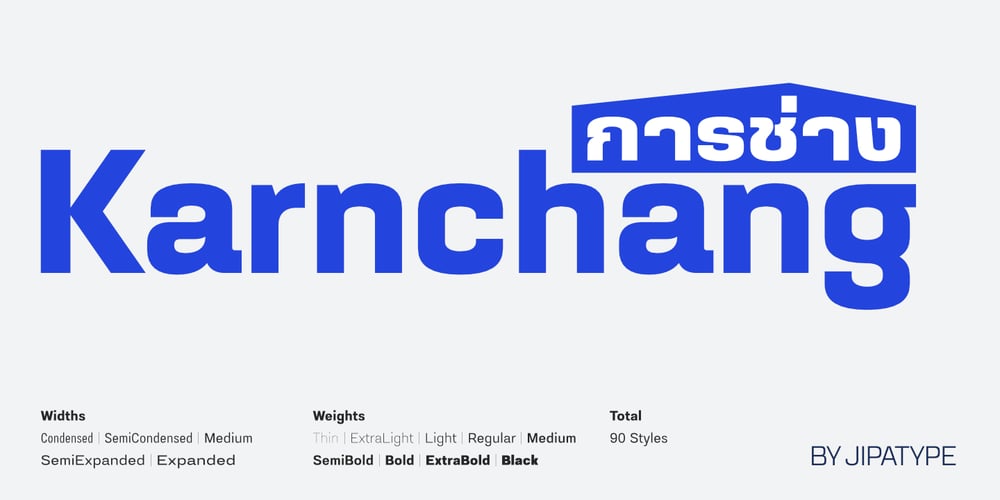
Karnchang
Karnchang font
Karnchang Font Family was designed by Anupap Jaichumnan and published by Jipatype. Karnchang contains 90 styles and family package options. Karnchang is a versatile sans-serif typeface that offers a range of 90 styles, spanning from thin to black in weight and condensed to expanded in width. Its adaptability makes it well-suited for a variety of purposes.